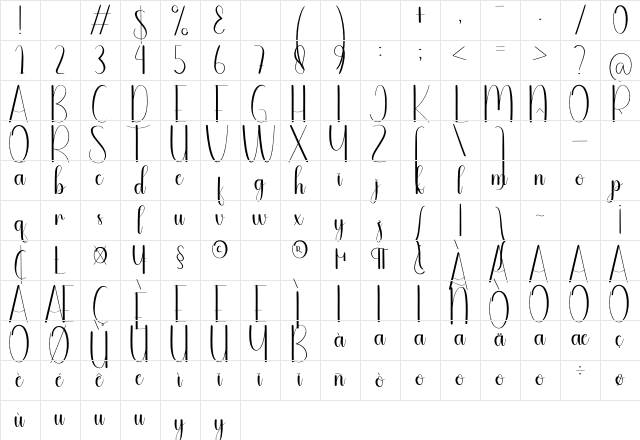
With Mother Regular Free Font
With Mother Regular
Design Context for With Mother
With Mother is a composed and adaptable typeface that performs quietly and consistently across a wide range of design contexts.